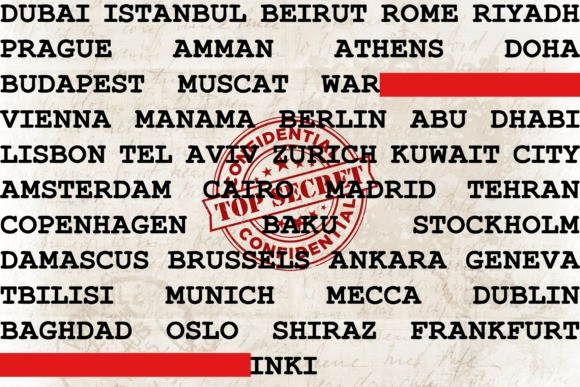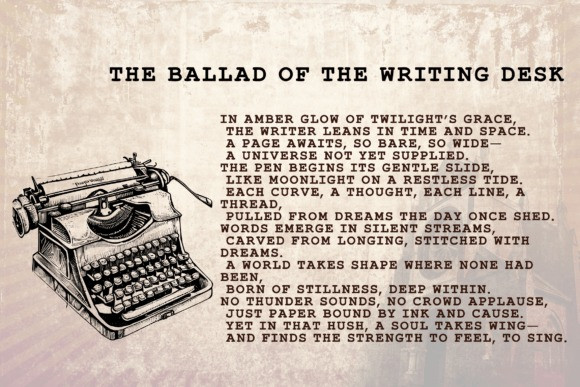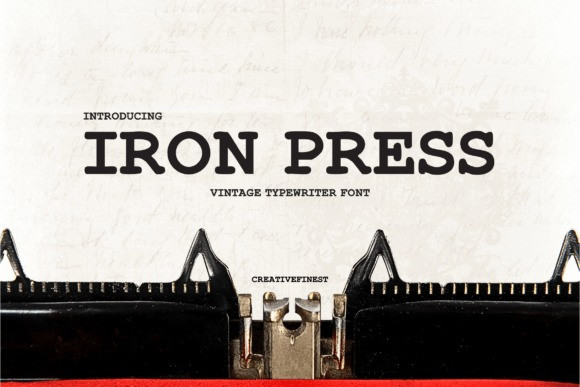
Iron Press Font
Iron Press Font, a sturdy, worn-out font that exemplifies the essence of a classic typewriter. This visually engaging font effortlessly infuses texture, emotion, and distinctiveness into your creative endeavors.
Uniquely melding the timeless appeal of vintage typewriters with a hint of modern style, Iron Press stands out as a remarkable choice for illustrating an original, rustic yet captivating story.